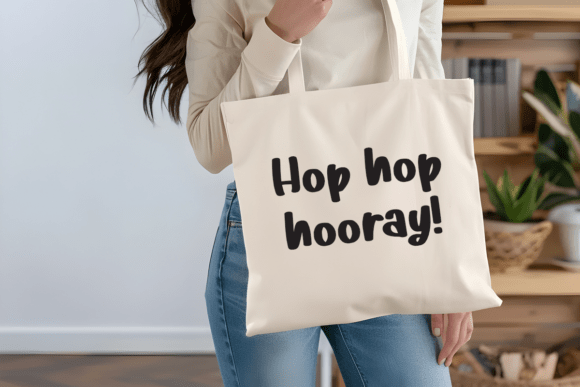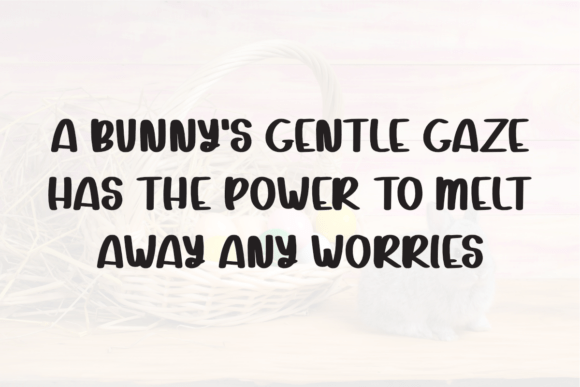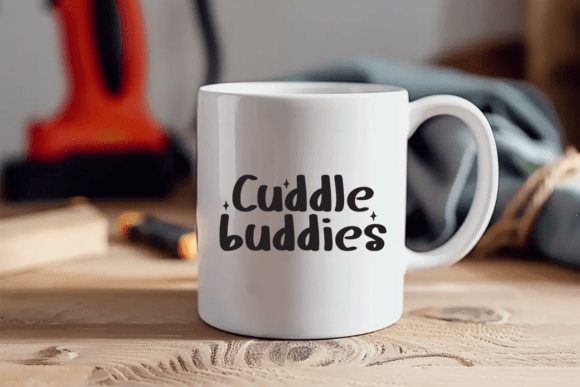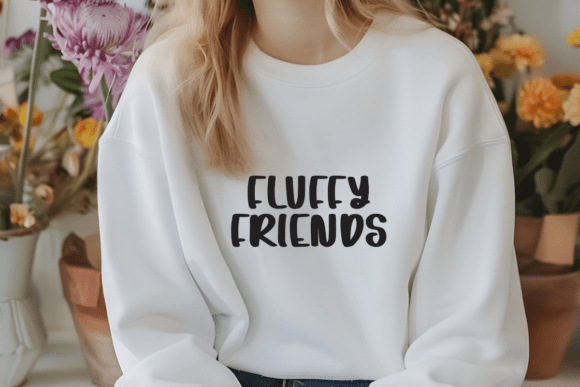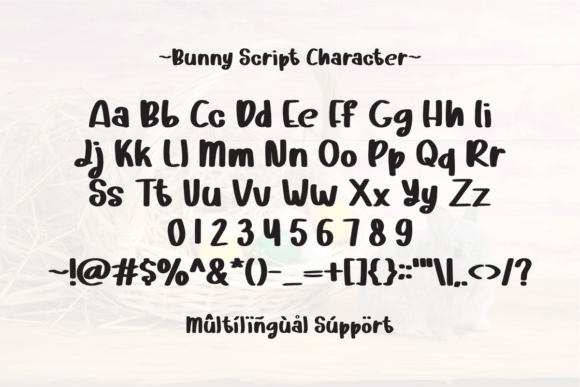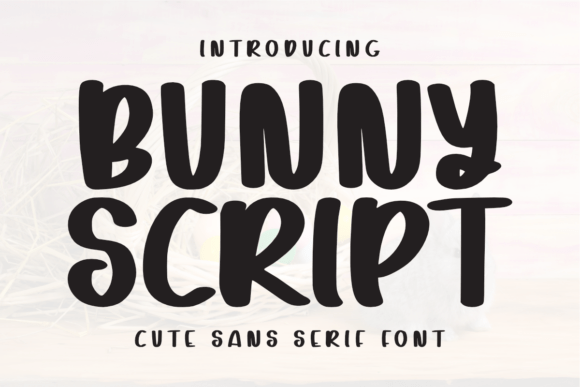
Bunny Script Font: The Perfect Addition to Your Playful Projects
Are you looking for a font that can add a touch of whimsy and fun to your designs? Look no further than the Bunny Script Font! This bold and bubbly sans serif font is designed to bring a smile to your face with its irresistible charm. In this article, we’ll dive into the features and benefits of the Bunny Script Font, and explore how it can elevate your playful projects, kids’ products, and seasonal themes.
The Characteristics of Bunny Script Font
Bunny Script Font is a sans serif font, which means it doesn’t have the small lines or flourishes at the end of the letters. However, what sets it apart from other sans serif fonts is its soft curves and handwritten feel. The font has a playful and carefree vibe that’s perfect for designs that need a dash of fun and personality.
One of the standout features of Bunny Script Font is its bold and bubbly appearance. The letters are rounded and smooth, giving the font a friendly and approachable feel. The font is also highly legible, making it perfect for use in a variety of design applications, from signage and posters to greeting cards and t-shirts.
Perfect for Playful Projects
Bunny Script Font is designed with playful projects in mind. Whether you’re creating designs for kids’ products, party decorations, or seasonal themes like Easter, this font is sure to delight. The font’s whimsical feel and bubbly personality make it perfect for adding a touch of fun and excitement to your designs.
Some ideas for using Bunny Script Font in playful projects include:
- Designing Easter egg hunt posters or flyers
- Creating cute and colorful t-shirts for kids
- Developing party invitations or decorations for birthday parties
- Designing fun and playful signage for kids’ events or attractions
Adding Cuteness and Fun to Your Designs
Bunny Script Font is all about adding a dose of cuteness and fun to your designs. The font’s soft curves and handwritten feel make it perfect for creating designs that are sweet, charming, and engaging. Whether you’re designing greeting cards, posters, or signage, Bunny Script Font is sure to bring a smile to your audience’s face.
Some tips for using Bunny Script Font to add cuteness and fun to your designs include:
- Pairing the font with bright and bold colors to create a playful contrast
- Using the font in combination with cute illustrations or graphics
- Experimenting with different font sizes and styles to add visual interest
- Adding fun and playful textures or patterns to your design
Why Designers and Crafters Love Bunny Script Font
Bunny Script Font has become a favorite among designers and crafters for its versatility and charm. The font is easy to use and pairs well with a variety of design styles, making it perfect for a range of applications.
Some reasons why designers and crafters love Bunny Script Font include:
- Its highly legible and easy-to-read design
- Its versatility and ability to be used in a variety of design applications
- Its playful and whimsical feel that’s perfect for adding a touch of fun to designs
- Its ability to evoke emotions and create a connection with the audience
In conclusion, Bunny Script Font is a bold and bubbly sans serif font that’s perfect for adding a touch of whimsy and fun to your designs. With its soft curves and handwritten feel, this font is sure to delight audiences of all ages. Whether you’re designing playful projects, kids’ products, or seasonal themes, Bunny Script Font is the perfect addition to your design toolkit. So why not give it a try and see how it can elevate your designs to the next level?